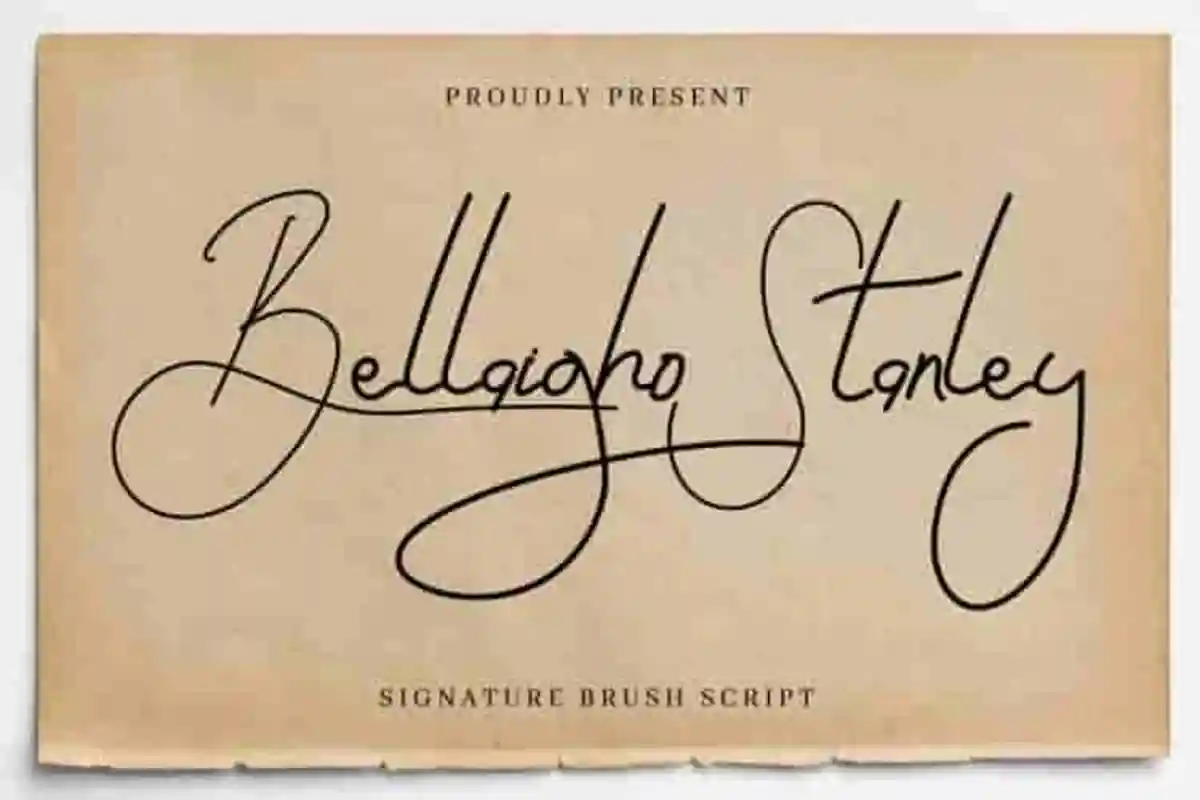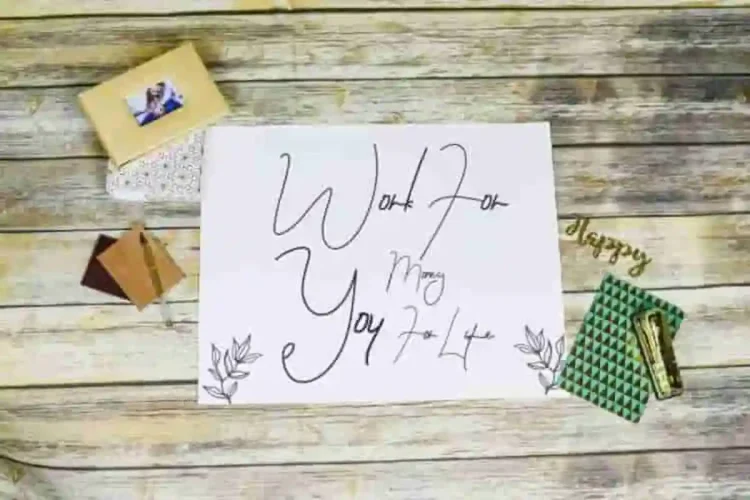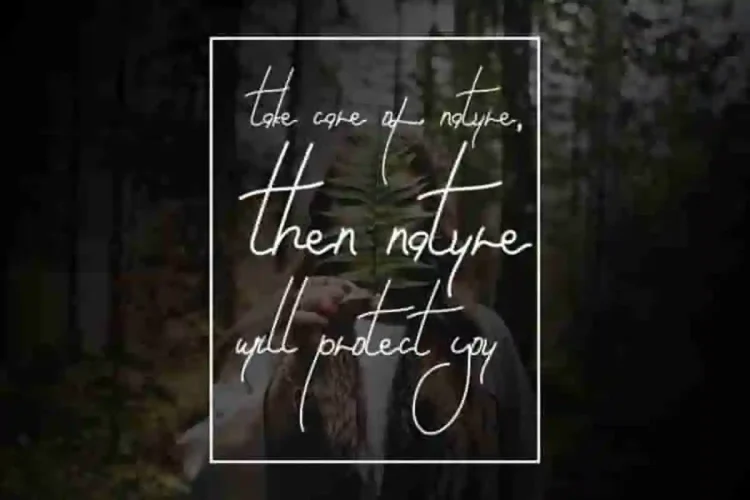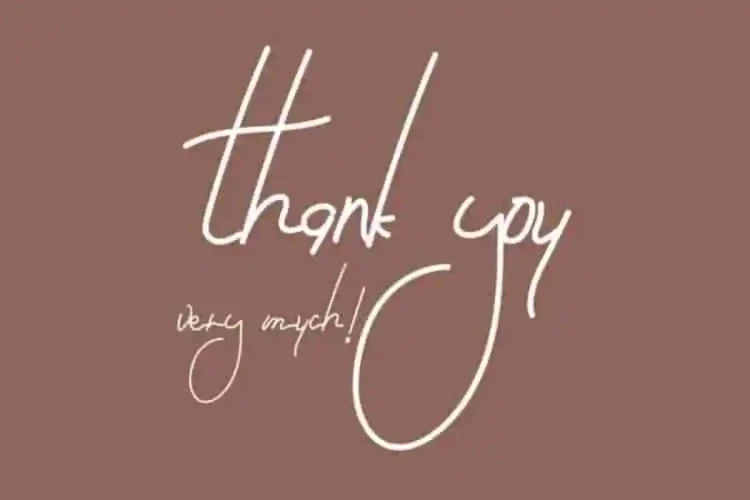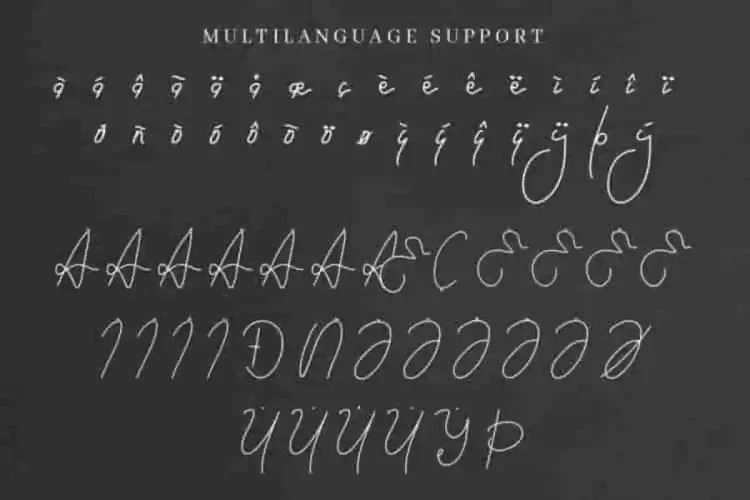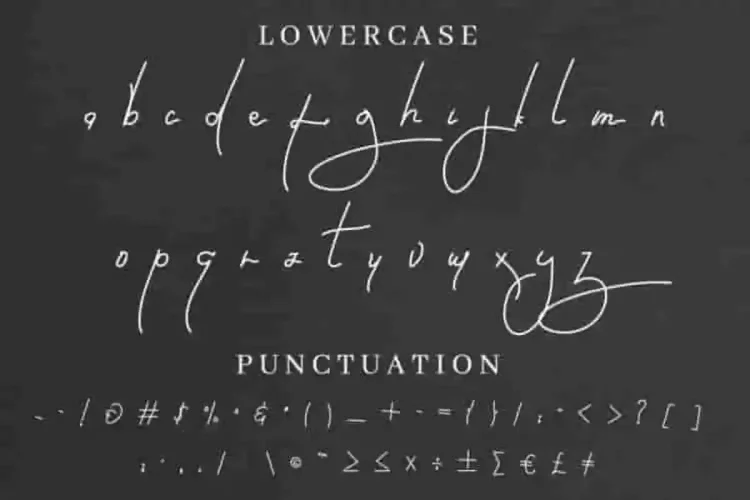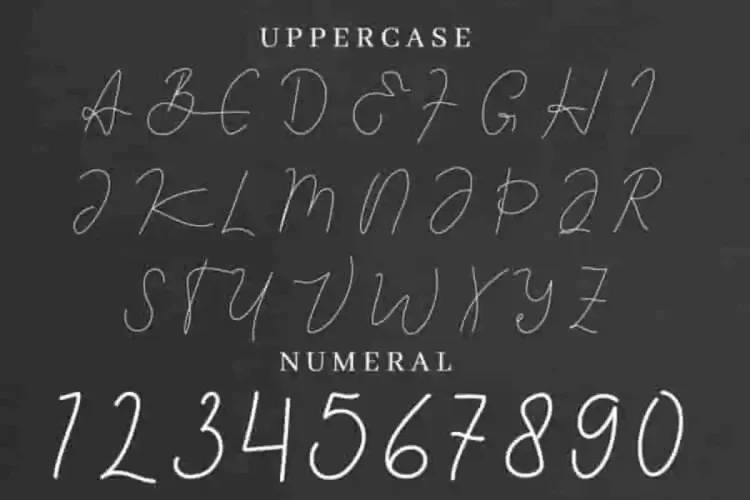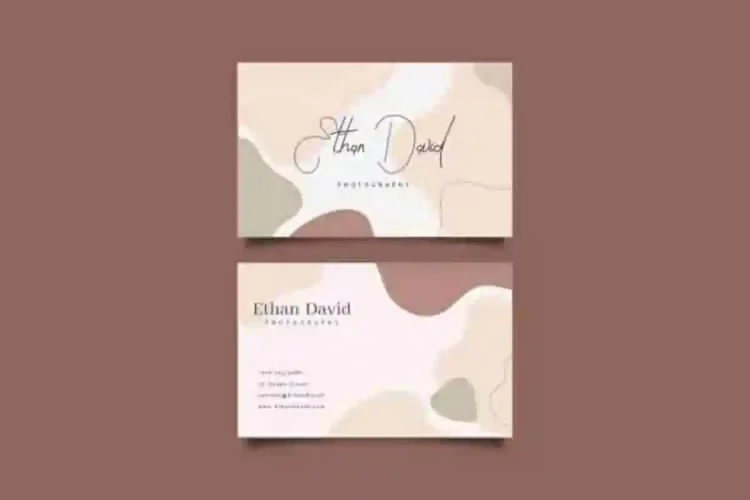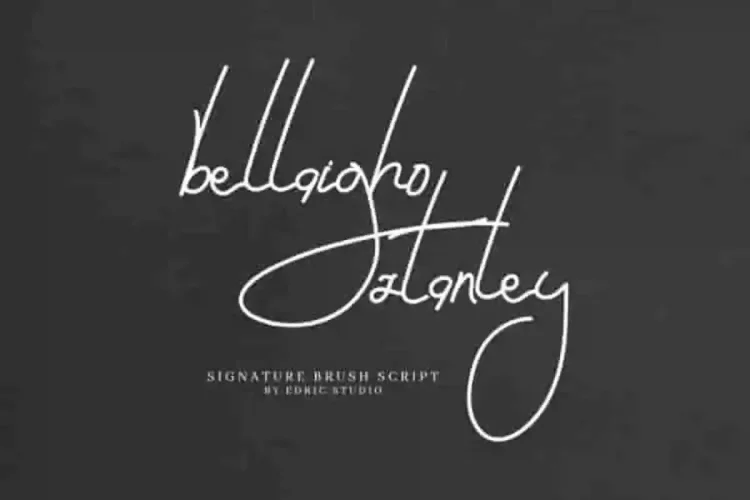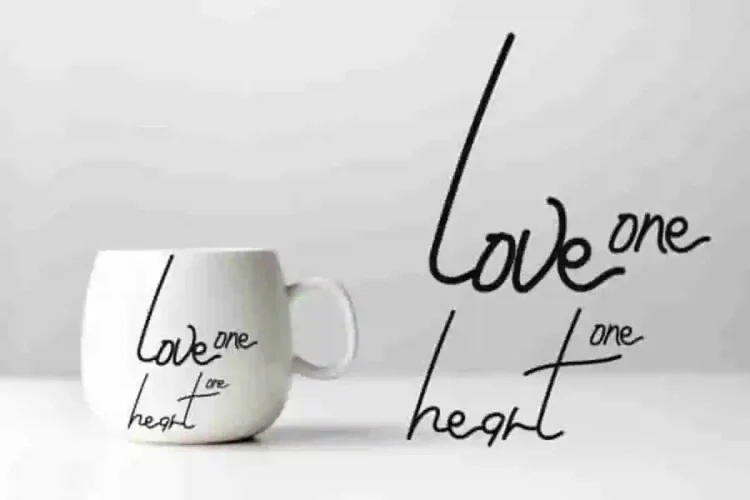
Bellaigho Stanley Calligraphy Script Font
Introducing our newest font from our lovely artist : Bellaigho Stanley Font
This is a calligraphy signature font, handcrafted from our Studio here in, Indonesia. The artists/designers of this beautiful tyeface is Saila and Suci.
Bellaigho Stanley Font is an exclusive signature calligraphy script typeface with natural pen style. This font has a stunning characters set, perfectly managed with well spaced and kerning.
Bellaigho Stanley Font will be great for any projects including : branding, logo, stationery, business card, signage, flyer, brochure etc. Almost all industries will be match for this typeface: wedding, events, real estate, architect, law firm, florist, gardening, makeup artist, travel, hotel, musician etc.